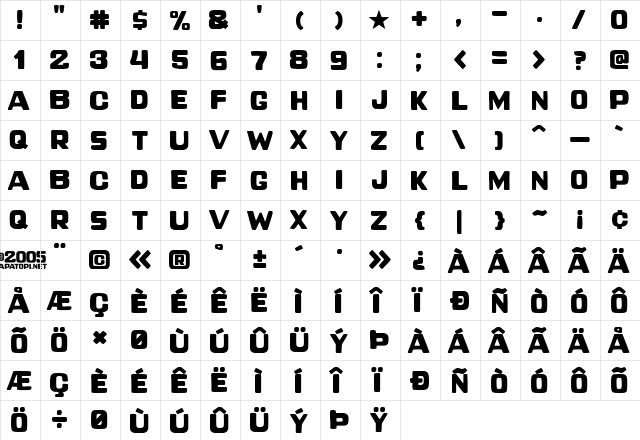
Duarte Centenario Regular
Design Context for Duarte Centenario Typeface
Duarte Centenario takes a measured approach to typography — its balanced proportions and neutral character make it a reliable workhorse for both digital and print work.